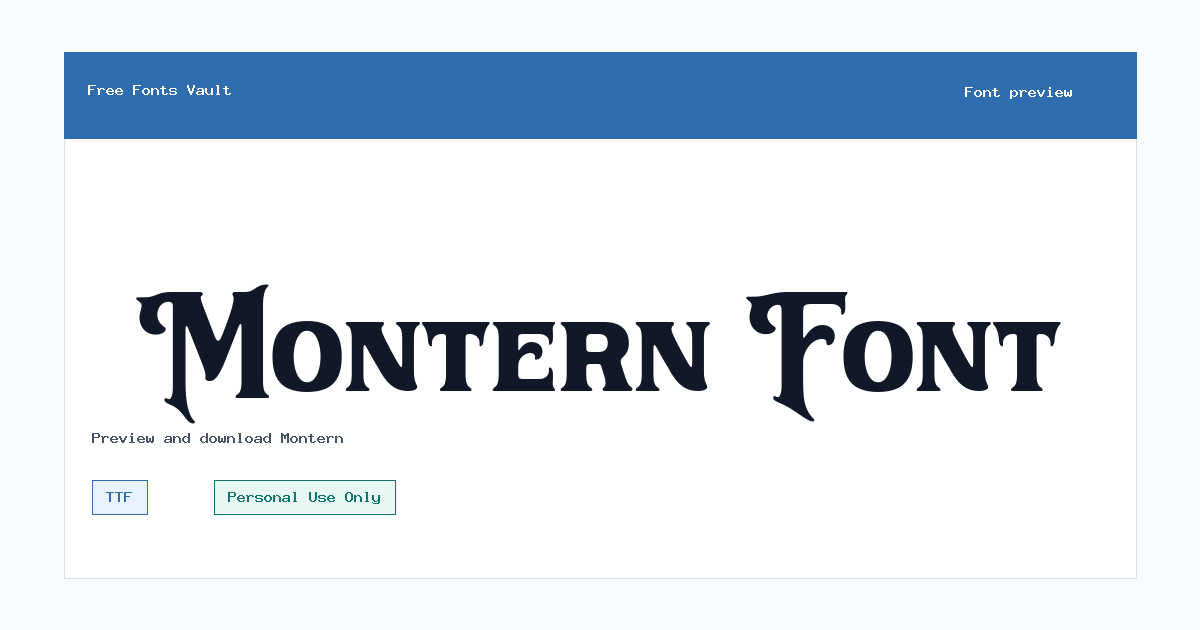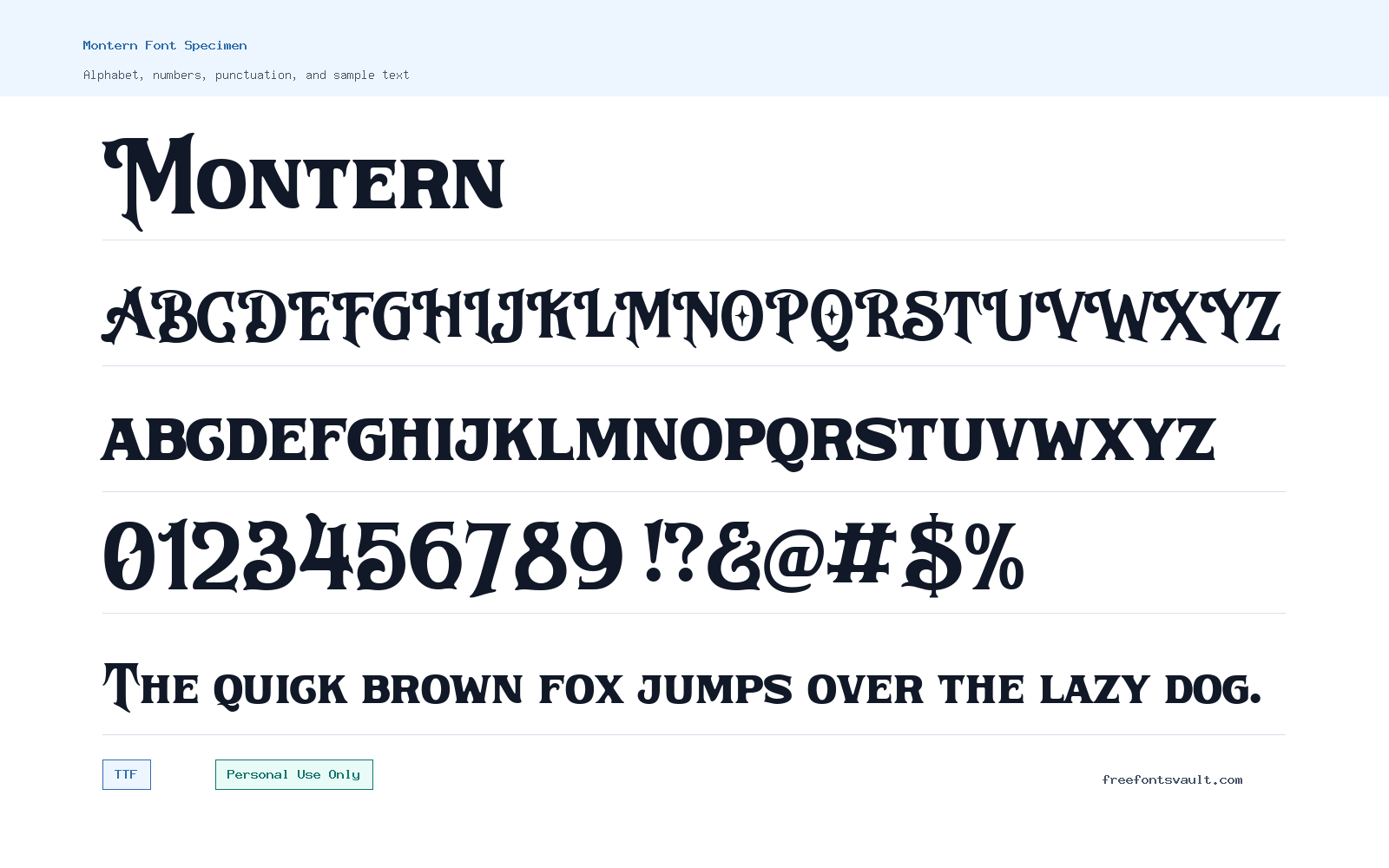
Montern
- Designer Burhan Afif
- Foundry HansCo Studio
Montern font.
Montern is a vintage-style display font for projects that need a bold, crafted look without becoming too formal. It is best treated as a headline or accent font, especially for short words, names, labels, and poster-style text.
About Montern Font
Use the preview box to test your exact wording before downloading. Display fonts can change character from one word to another, so try uppercase and lowercase text, spacing, numbers, and punctuation if your design needs them. Montern should be most useful for logos-in-progress, poster headings, packaging mockups, badges, social graphics, invitation titles, and other places where the font only has to carry a small amount of text.
- Vintage-style display character suited to headings and short text
- Poster titles, badges, labels, and social media graphics
- Short branding drafts, invitation headings, and packaging mockups
Montern is credited to Burhan Afif, with HansCo Studio listed as the foundry.
Who designed Montern?
The font is credited to Burhan Afif, and HansCo Studio is listed as the foundry.
What is Montern best used for?
Montern is best for short display text such as titles, badges, posters, labels, invitations, and social graphics. It is not the safest choice for long paragraphs.